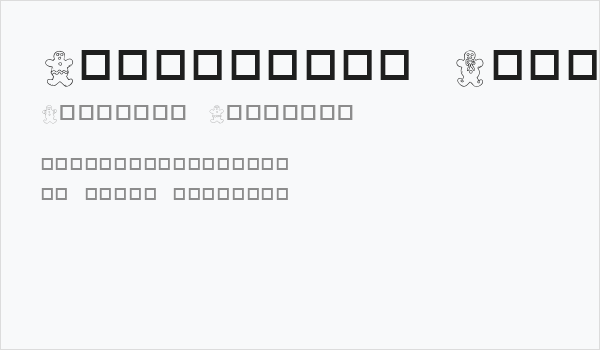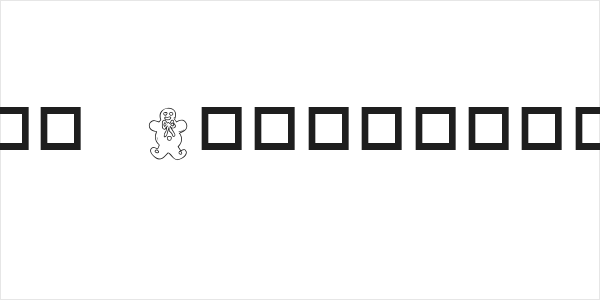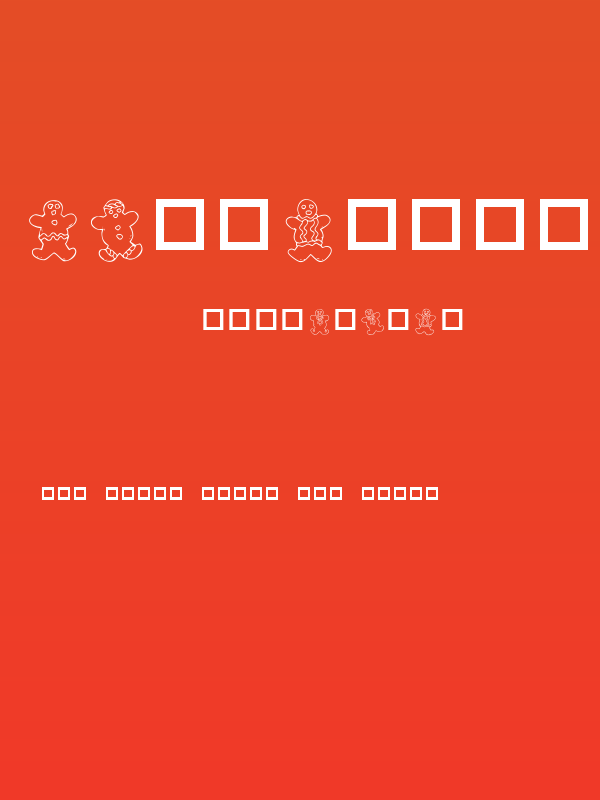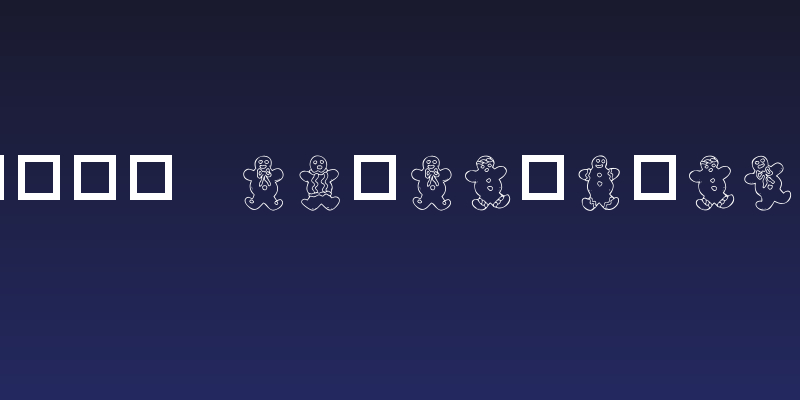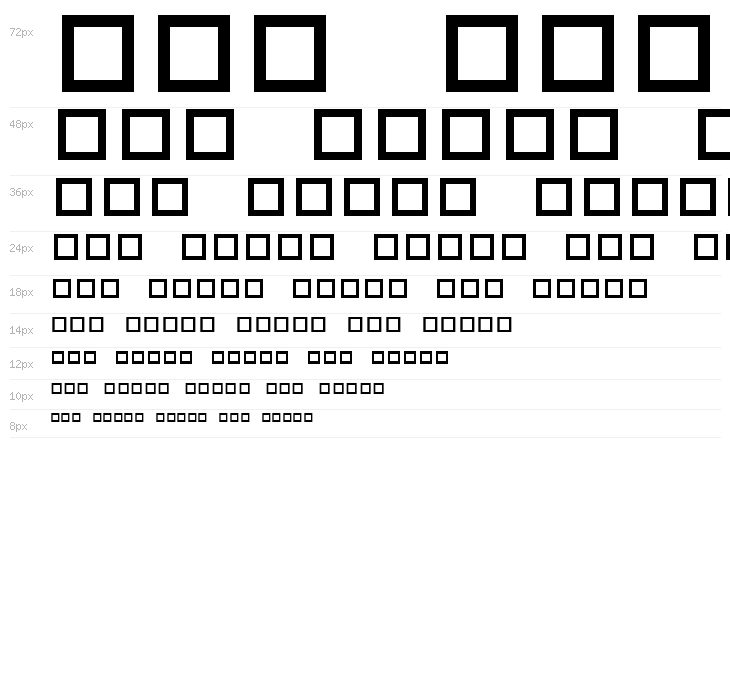
Destiny's Gingerbread Dings Font
Destiny's Gingerbread Dings Description
This font is a whimsical and playful decorative typeface featuring gingerbread man illustrations in place of traditional alphanumeric characters. Each character is represented by a unique gingerbread figure, adding a festive and fun element to any design. The font is perfect for holiday-themed projects, offering a charming and lighthearted aesthetic. The characters are detailed with various expressions and decorations, making each one distinct and engaging. This font is not suitable for body text but excels in creating a joyful and festive atmosphere.
Overall StyleWhimsical and festive
Use CaseLogos, Headlines, Decorative elements
Proposed ProjectsIdeal for holiday cards, festive invitations, children's party decorations, and seasonal marketing materials.